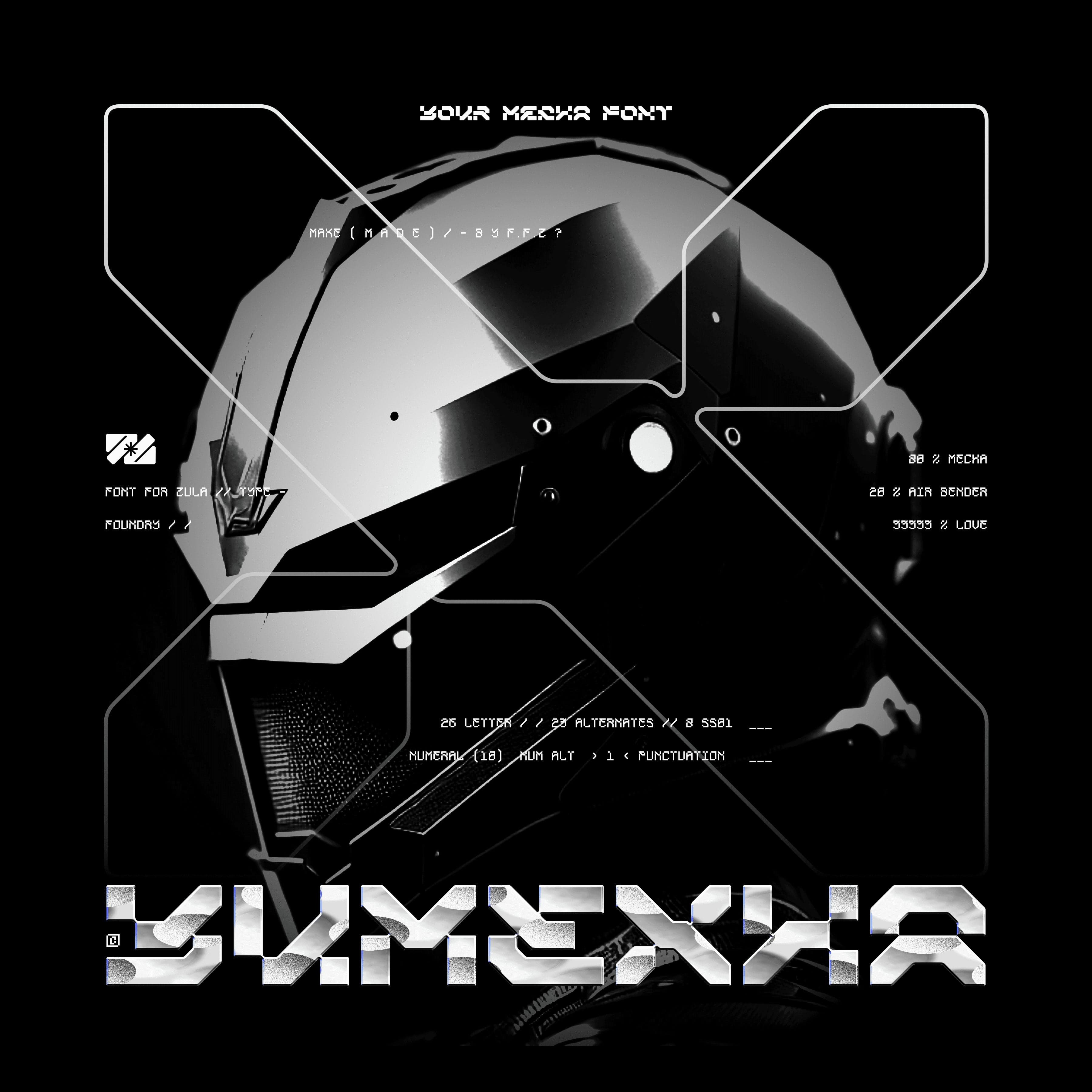
<p>YUMEXHA - Level up your design using this unique typeface with a futuristic mecha theme.<br>You also have lots of choices with abundant alternative letters.</p> <p>YUMEXHA Includes:</p> <p>- OTF/TTF<br>- WOFF (Extended Only)<br>- 26 Letters<br>- 23 Alternates<br>- 8 Stylistic sets 01<br>- 10 Numerals<br>- 1 Numeral Alternates<br>- Punctuation</p>